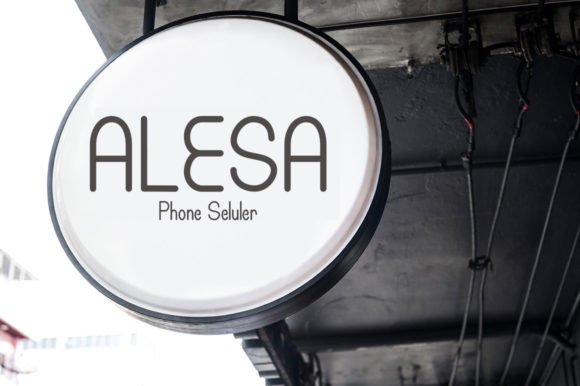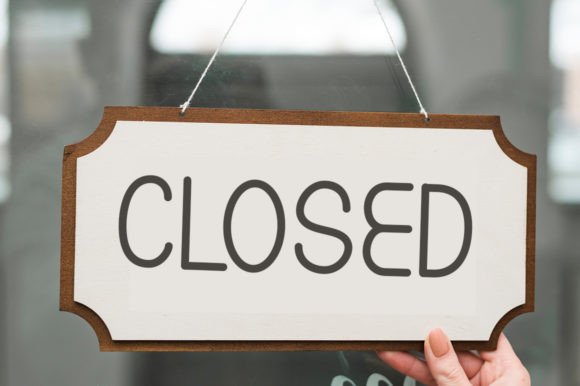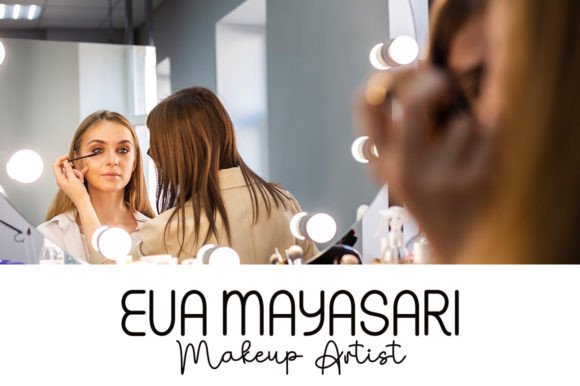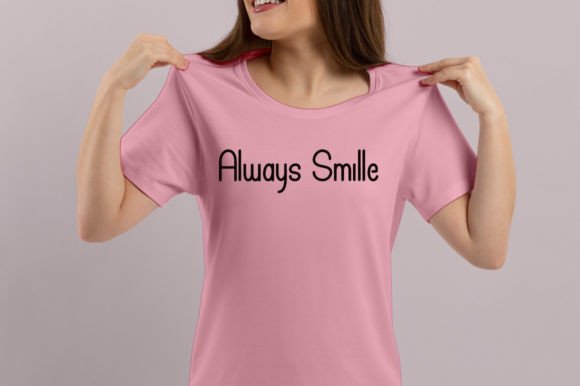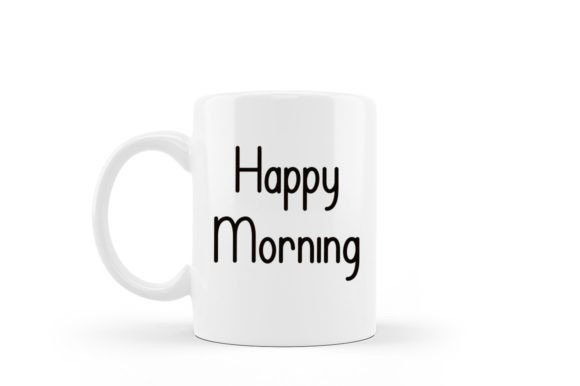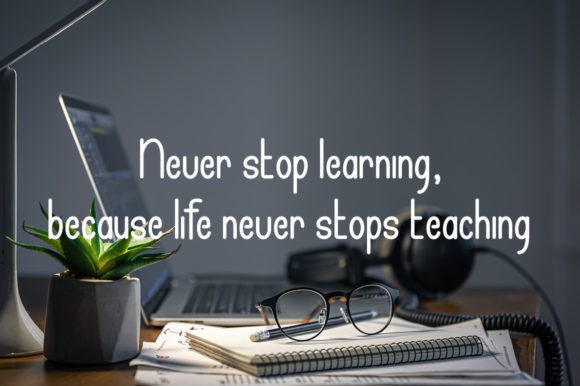
Introduction to Mixena Font
You know that moment when a single design element clicks into place, and your entire creative project transforms? For designers, finding the right font can be just that magic moment. Imagine discovering a sleek, minimalist sans serif font that effortlessly elevates your design from good to great. Welcome to the world of Mixena Font, a game-changing design resource that’s about to become your new go-to companion.
With Mixena Font, you’ll unlock a world of creative possibilities. This high-quality font is designed to shine on any background, from transparent to textured, making it the perfect addition to your design arsenal. Whether you’re working on a branding project, creating digital assets, or crafting a website, Mixena Font’s clean lines and versatility will make your design stand out.
Key Features of Mixena Font
- High-quality, professional design suitable for various creative projects
- Transparent background, allowing for seamless integration into custom designs
- Supports a wide range of languages, including Latin, Cyrillic, and Greek scripts
- Unique, modern design aesthetic, perfect for adding a touch of sophistication to any design project
Honest Review: Mixena Font
I recently had the chance to work with the Mixena Font, and I must say it’s a great addition to any design resource. This font offers a unique and modern aesthetic that can elevate any creative project.
One of the things that works well with the Mixena Font is its versatility. It can be used for a wide range of applications, from digital products to print materials. The font also comes with a transparent background, making it easy to combine with other design elements.
- High quality design that is perfect for creative projects
- Transparent background for easy layering and combining
- Modern and unique aesthetic that can add a touch of sophistication to any design
While the Mixena Font is a great resource, there are some limitations to consider. The font is only available in a limited number of weights, which may not be ideal for designers who need a wide range of font options. ⚠️
Overall, I’m impressed with the Mixena Font and would recommend it to designers looking for a high-quality, modern font for their creative projects. ✨
Mixena Font is perfect for a variety of creative projects, including logos, business cards, and graphics. Its high-quality design and transparent background make it a great choice for designers who want to add a professional touch to their work.